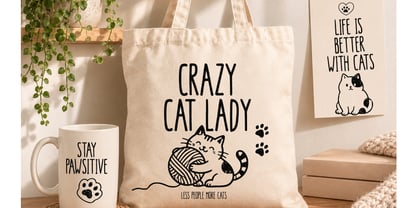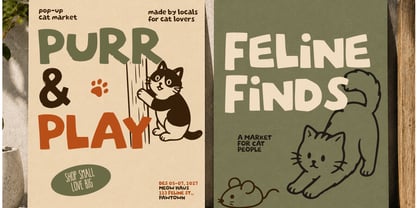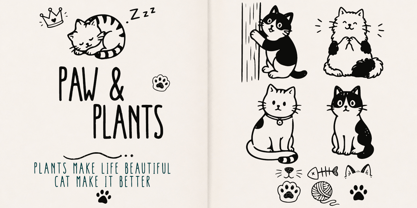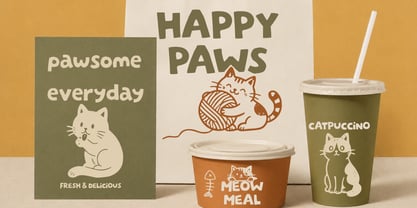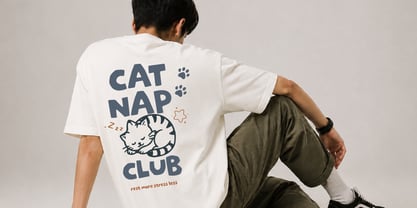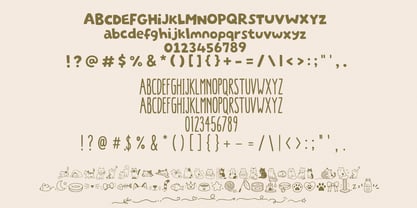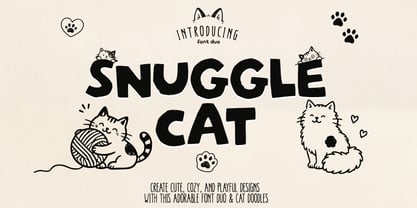
Snuggle Cat
by Cocodesign
The Snuggle Cat Font Family was designed by Muhammad Zaini and published by Cocodesign. Snuggle Cat contains 3 styles and family package options. More about this family
Snuggle Cat – Font Duo
Bring warmth and charm to every creative project with Snuggle Cat, a delightful font duo inspired by cozy moments and playful feline vibes. This collection combines a bold, handcrafted display font with a clean handwritten companion, making it easy to create eye-catching designs with a fun and friendly personality.
To make every design even more expressive, Snuggle Cat also includes a collection of hand-drawn cat doodles, paw prints, and charming decorative elements that perfectly complement the fonts. These adorable illustrations make it easy to create unique compositions for branding, merchandise, packaging, social media, greeting cards, stickers, and printable projects without the need for additional artwork.
Designed with versatility in mind, this font duo offers the perfect balance of bold lettering and playful details, making it suitable for a wide range of creative projects that call for a cozy, cute, and handcrafted feel.
Snuggle Cat